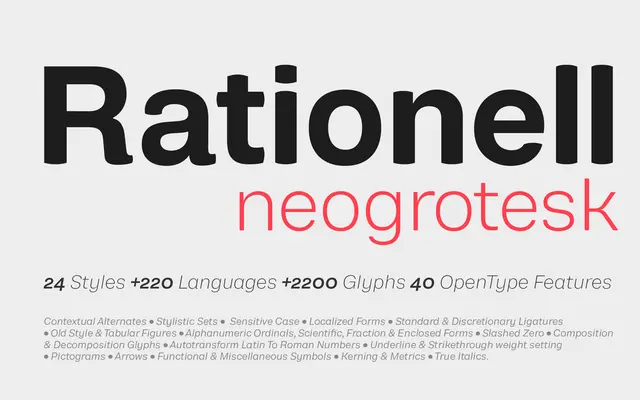
Rationell
A 24-style corporate sans drawing on mid-century Swiss rationalism with a Didone structural underpinning, covering 222 Latin-based languages across 12 weights and matching italics.
Spanning Hairline to ExtraBlack with matching italics, the family is sized for both continuous text and monumental display applications such as billboards and building-scale printed mesh. Forty OpenType features include contextual alternates for 'Il' disambiguation, automatic Roman numerals, old-style and tabular figures, and localised forms across more than 2,200 glyphs. The design targets corporate publishing, wayfinding and complex information systems where consistency across weight extremes matters.
Rationell draws on 1950s Swiss rationalism with underlying structure referencing 19th-century Didone modernism, placing it firmly in the neo-grotesque tradition with humanist Latin inflections.